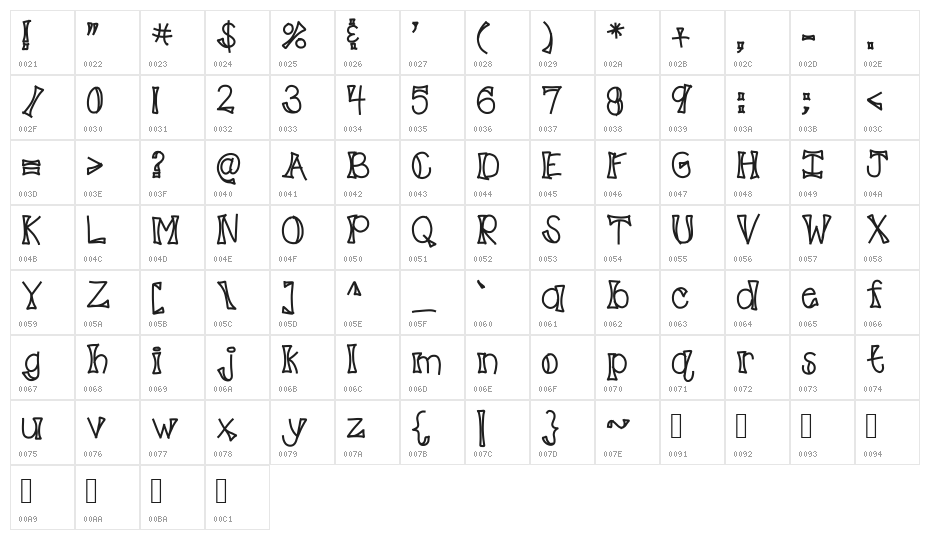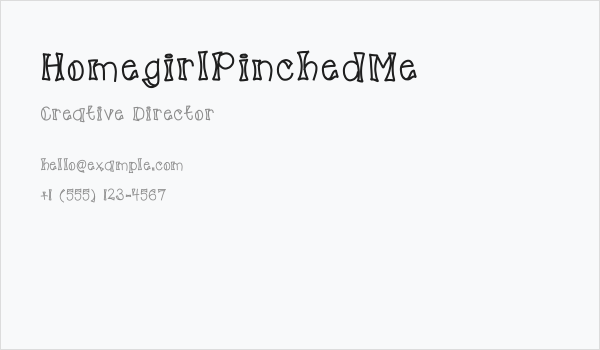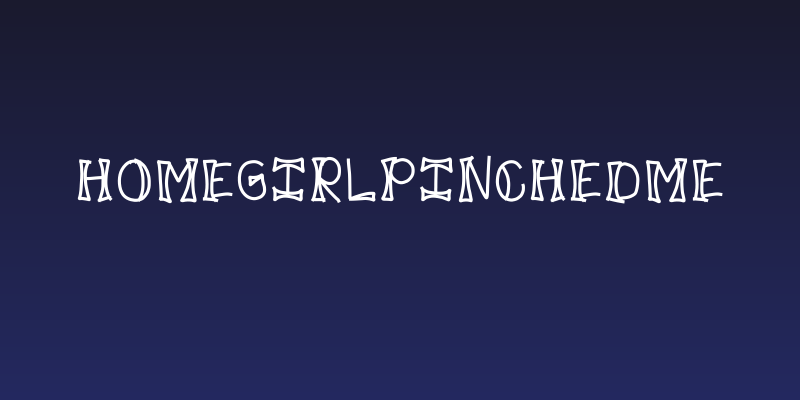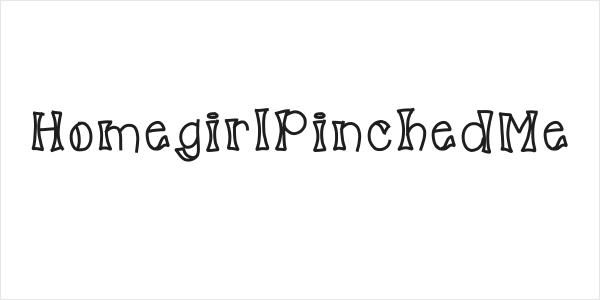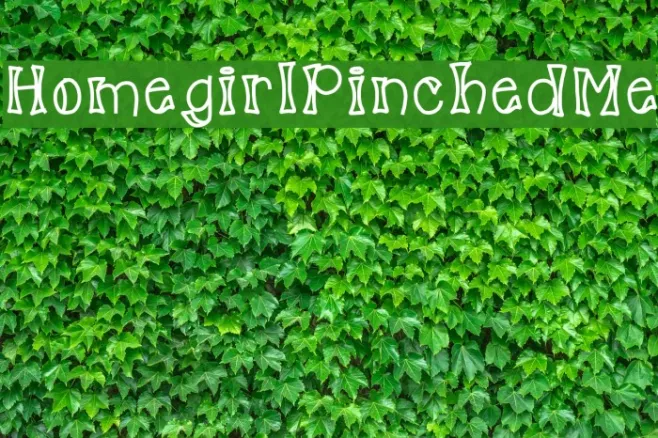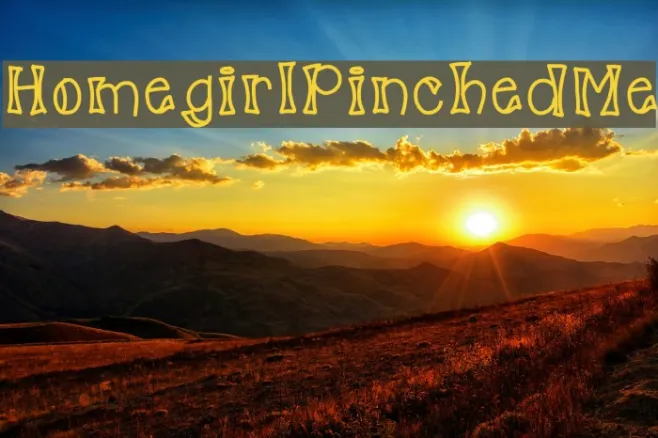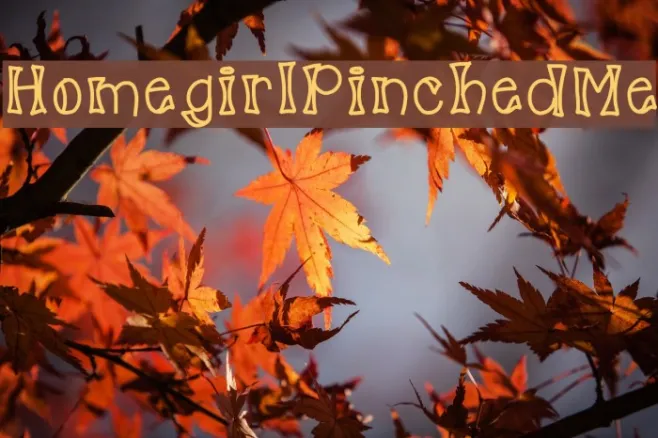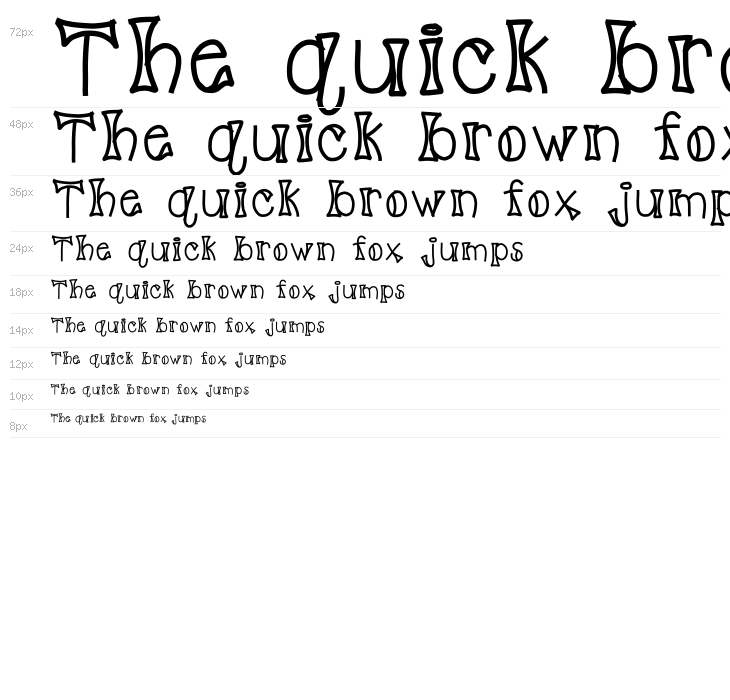
HomegirlPinchedMe Font
HomegirlPinchedMe Description
This font features a playful and whimsical style with a hand-drawn appearance. The letters have an irregular, slightly distorted form, giving them a quirky and unique character. The strokes are uneven, with varying thickness that adds to the casual and informal feel. The uppercase and lowercase letters maintain a consistent style, while the numbers and special characters follow the same playful design. This font is ideal for projects that require a fun and lighthearted touch, such as children's books, party invitations, or creative branding.
| Proposed Projects | Children's books, party invitations, creative branding, casual posters. |